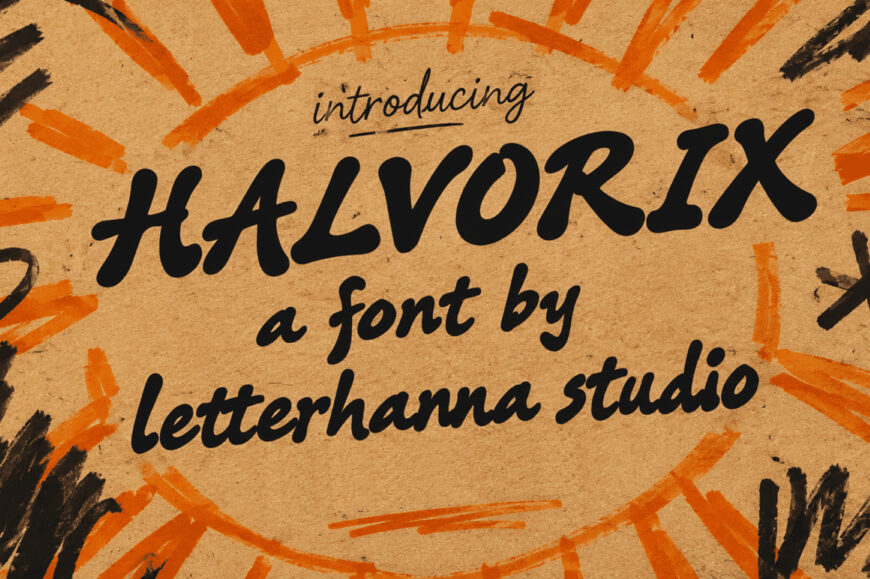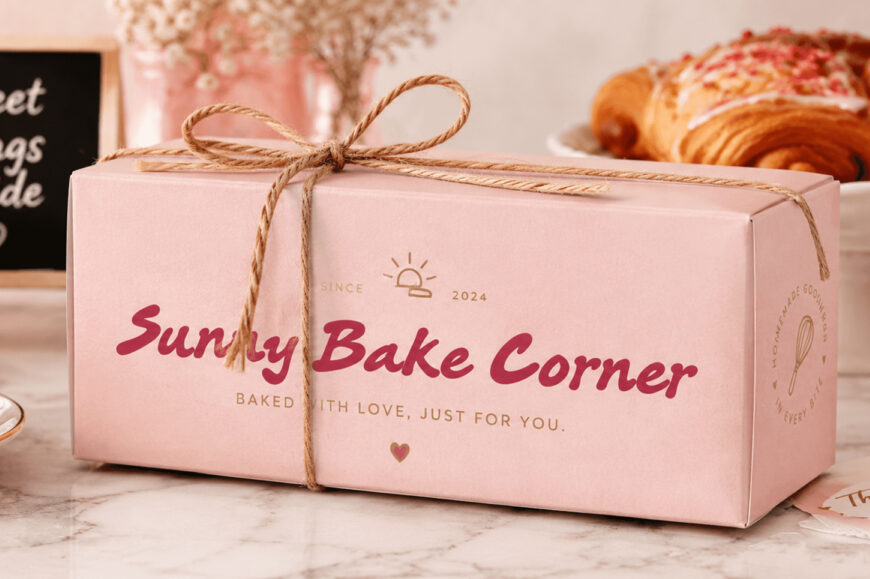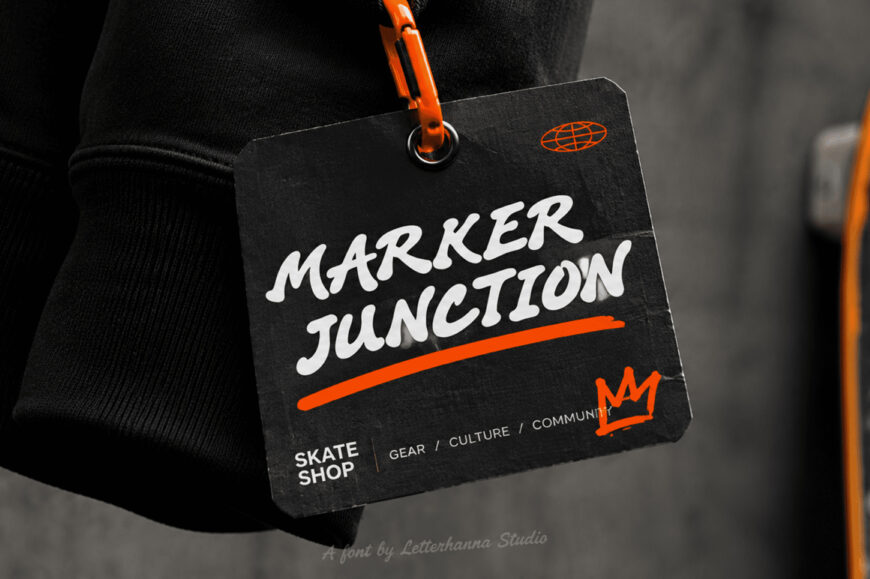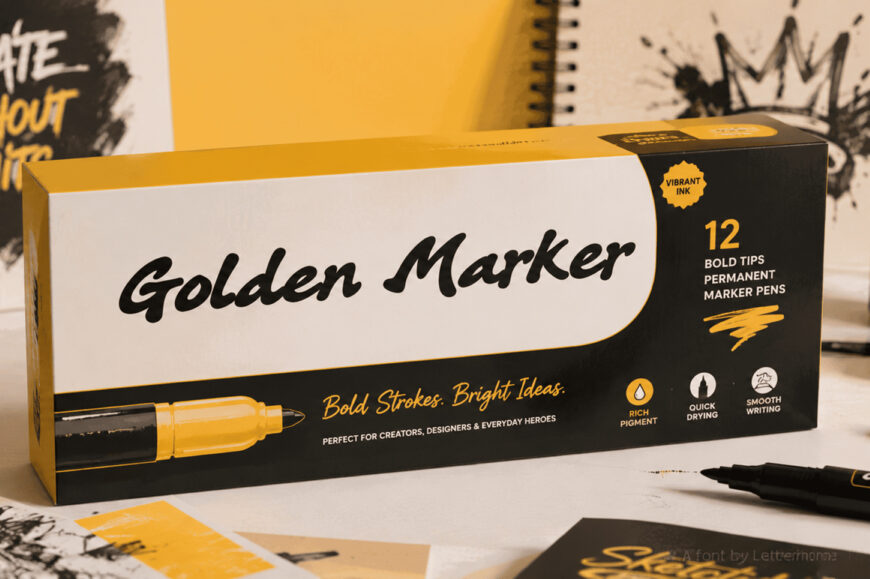
Halvorix is a bold hand-marker font that blends playful energy with professional character. Its rounded lowercase letters feel loose and natural, while uppercase swashes add a distinctive signature-like touch.
Perfect for logos, packaging, posters, kids’ brands, streetwear, snacks, and youth-focused designs, Halvorix adapts effortlessly to different styles. Its thick strokes and expressive details give any project personality, making it a memorable choice when ordinary typography just doesn’t stand out.